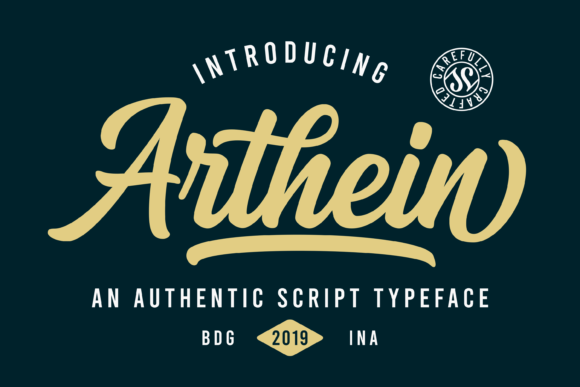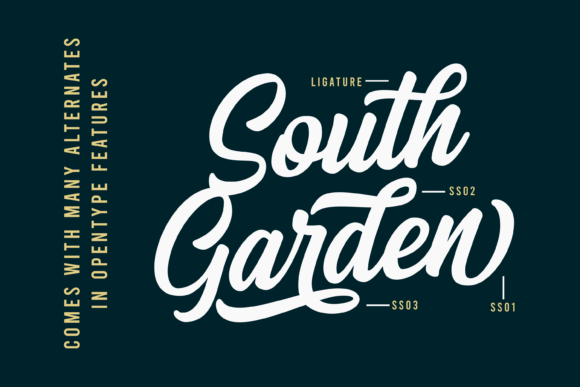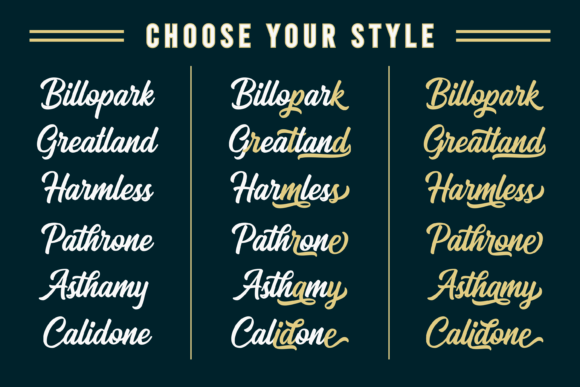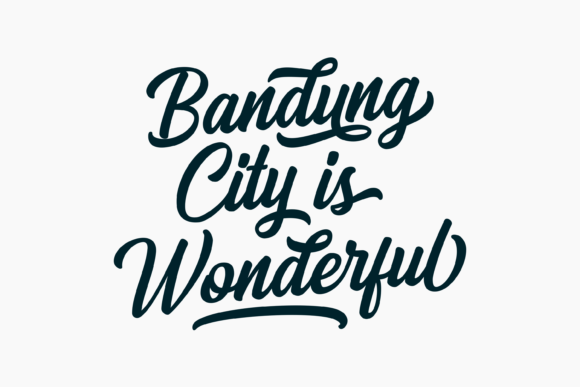
Arthein Font: A Bold Script Typography for Signature Logo Design
About the Arthein Font
Unleash your creativity with Arthein Font, a versatile font perfect for a wide range of applications. Arthein is a bold script typeface with an authentic hand-lettering touch. Fall in love with its iconic ligatures.
Arthein’s bold strokes and expressive ligatures make it ideal for headlines, short impactful phrases in branding materials, and eye-catching signage. It adds a touch of handcrafted authenticity to logos and packaging designs, particularly for products targeting a sophisticated or creative audience. However, its decorative nature makes it unsuitable for extended body text or UI elements where readability is paramount.
Consider pairing Arthein with a clean sans-serif like Montserrat for a contemporary contrast, or a classic serif such as Garamond for a more traditional feel. For a playful juxtaposition, a geometric sans-serif like Futura could work well. The pairing will depend on the desired level of formality and the overall brand aesthetic.
Arthein projects a confident and sophisticated personality, lending itself well to brands emphasizing quality craftsmanship or artistic expression. Its strong, yet slightly informal character strikes a balance between elegance and approachability.
Arthein Font Usage Examples
Arthein Font Example